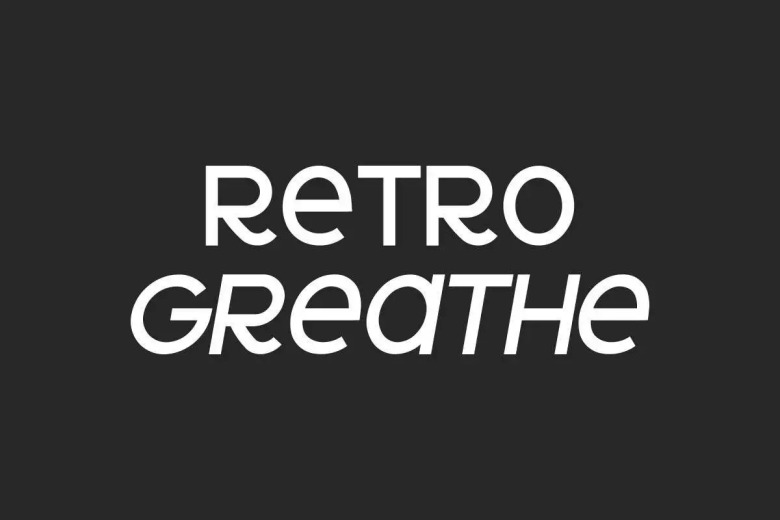
Retro Greathe Font
Retro Greathe Font is a modern and unique sans serif display font. This font has two style and perfect for many industries, such as: art gallery, apparel, cosmetic, event or wedding organizer, fashion, homeware, jewelry, printing, publishing, restaurant All caps, numeral, punctuation give the font it’s unique characteristics. These elements help to create a font that exudes sophistication and professionalism.
Retro Greathe Sans Serif Font